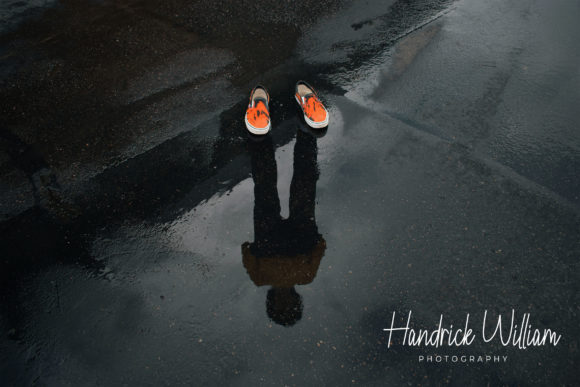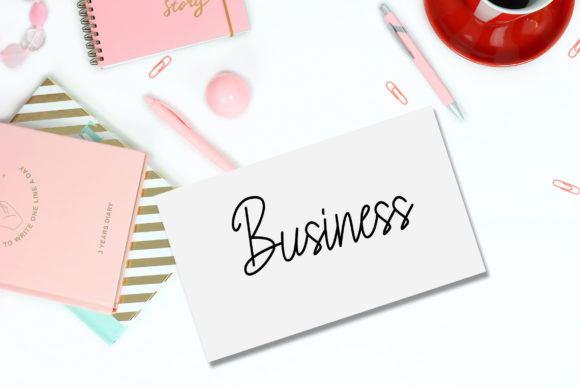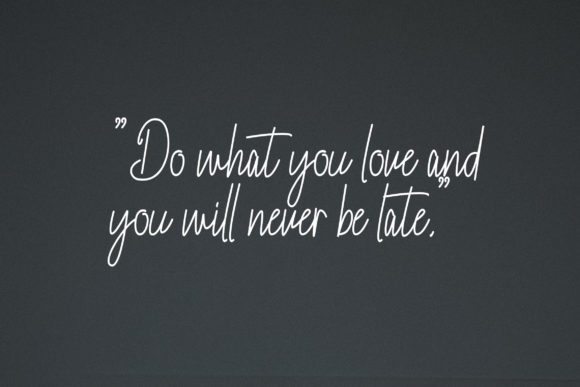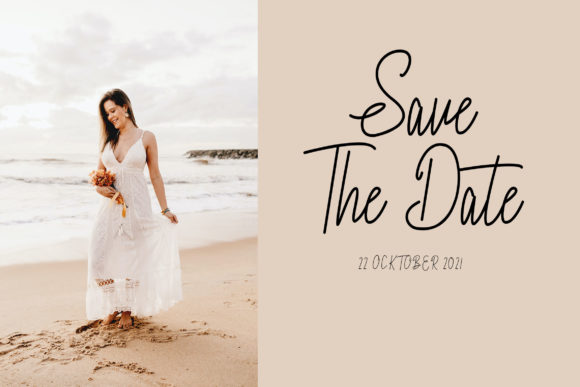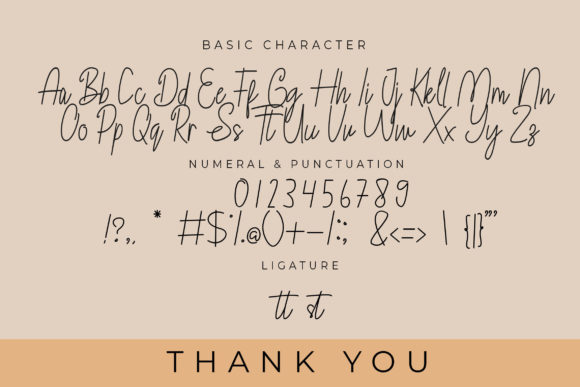
Satnight Font
About Satnight Font
Satnight is a chic, refined script font that emanates sophistication and elegance. Its stylish alternates and ligatures make this font the perfect match for any project.